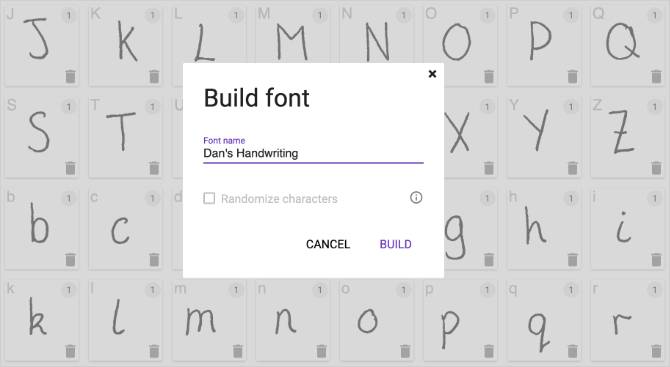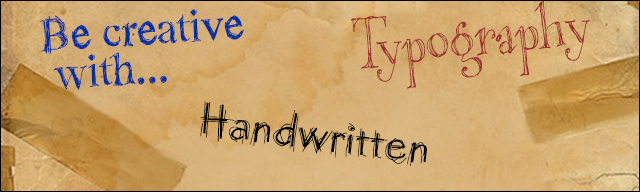
Free Handwritten Fonts In Powerpoint Free Typography Fonts
handwritten fonts in powerpoint
We use a combination of fade and custom motion path animation effects.
Handwritten fonts in powerpoint. Segoe print practical font no need for additional installing. If you want problem free nice script font to choose the one from default fonts present in ms office 2007 2010 2013nice looking font resembling handwritten style is segoe print. It looks like the effects created by whiteboard animation software like. On any other device powerpoint will replace your beautiful carefully planned custom font with one of the system defaults and this can have disastrous consequences for your design.
These handwritten fonts are drawn using any kind of writing instrument like pen pencil felt marker brush etc. Make sure to use fonts consistently within a document as well. So to fix this problem that comes from using custom fonts lets go to the file save as option. Looking for powerpoint fonts.
Find the trick to sync the text animation with the hand movement to make the writing effect look realistic. A custom font will only appear in your presentation if it is played on a device with that font installed. It looks like the effects created by whiteboard animation software like videoscribe. Embed new fonts in your powerpoint file.